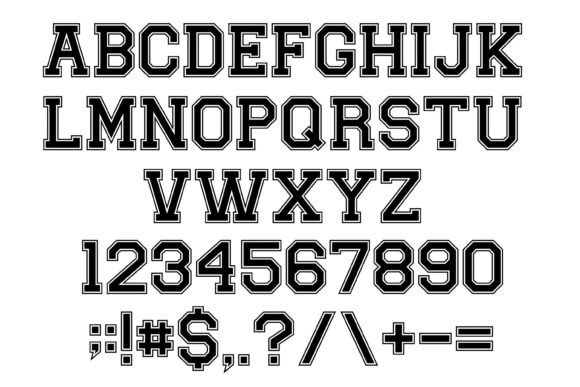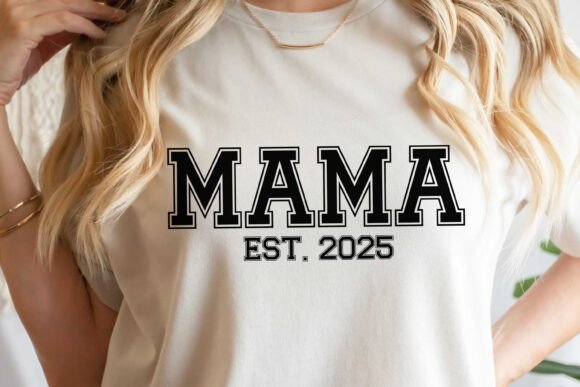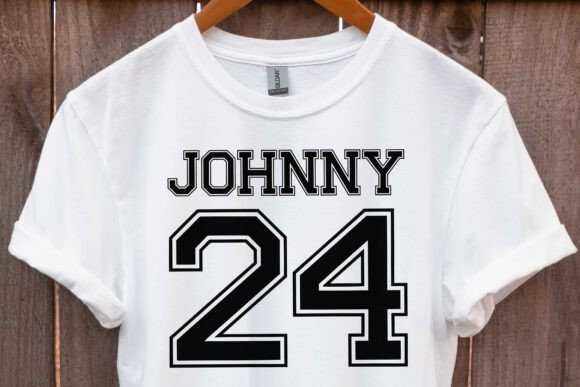
Brooklin Varsity Font
Brooklin is a bold varsity display font inspired by classic college, sports, and jersey lettering. Designed with sharp edges, strong outlines, and a commanding presence, Brooklin delivers the authentic athletic typography style seen in university team branding, championship designs, apparel, and bold headline graphics. Perfect for sports uniforms, merchandise, banners, and everything in between, this font combines tradition with modern impact.